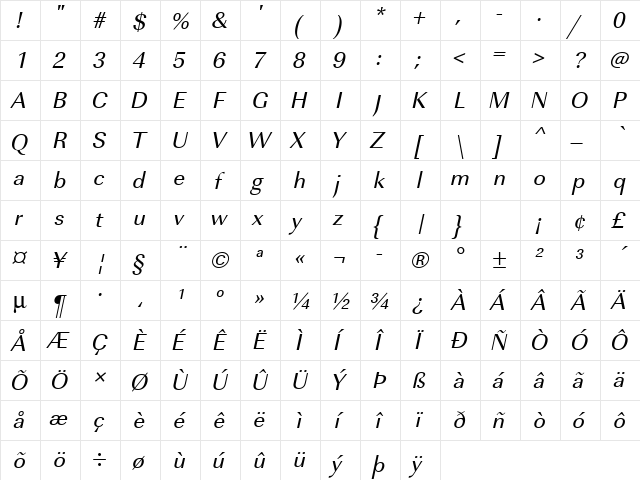
URWImperialT Oblique
Design Context for URWImperialT Typeface
URWImperialT offers clean, dependable letterforms without strong stylistic allegiance, making it a practical choice for designers who need flexibility. The slanted form adds forward momentum and visual energy.
Pro Tip: Use URWImperialT for emphasis, pull quotes, and subheadings where its slanted energy can add rhythm to the layout.